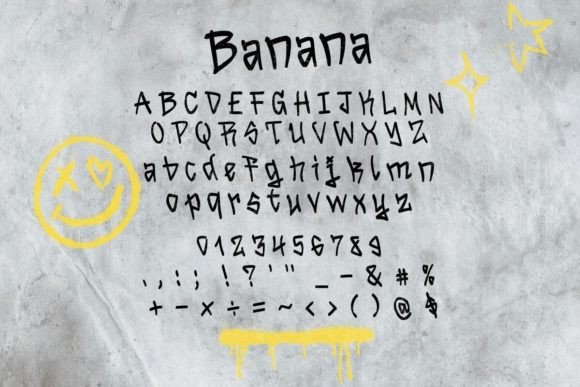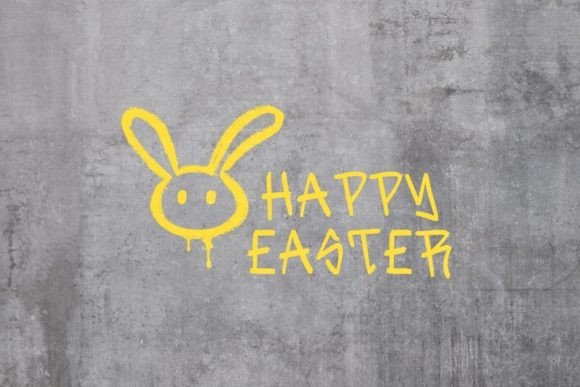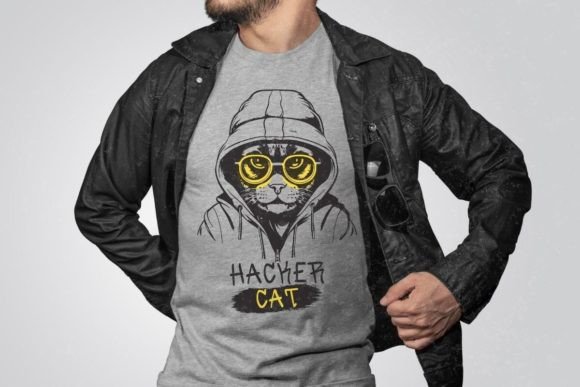
Banana Font
Introducing “Banana Font”, your passport to embodying urban dynamism through an innovative graffiti handwriting style. With “Banana”, your projects will be imbued with an electrifying gusto that radiates verve and audacity. It’s not just a font, it’s an exciting tool to turbocharge your social media impact, amplify your graphic art ventures, or navigate the limitless sea of creativity. Ideal for stirring graphics and posts on social media, making your graphic design work pop, creating eye-catching posters, flyers, and street art, enriching album covers and music promotions, and brandishing city-themed branding and marketing materials with a unique edge. Experience the aesthetic allure of the streets with “Banana”.